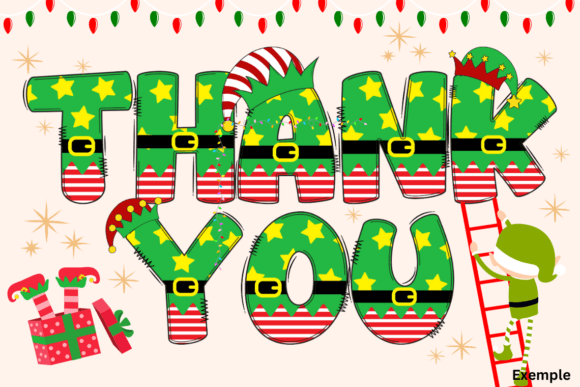
Funny Christmas Elf Font
Funny Christmas Elf is a whimsical and playful typeface that captures the mischievous and cheerful spirit of Christmas elves. Featuring hand-drawn, quirky letters with festive doodles, this font is perfect for spreading holiday joy in a fun and lighthearted way. Whether you’re creating Christmas cards, party invitations, posters, or school projects, Funny Christmas Elf Font adds a dose of holiday humor and charm to your designs. Ideal for holiday decorations, creative art, and graphic design, this font will make your festive creations stand out with its quirky personality. Bring the magic and laughter of Christmas to your projects with Funny Christmas Elf Font!